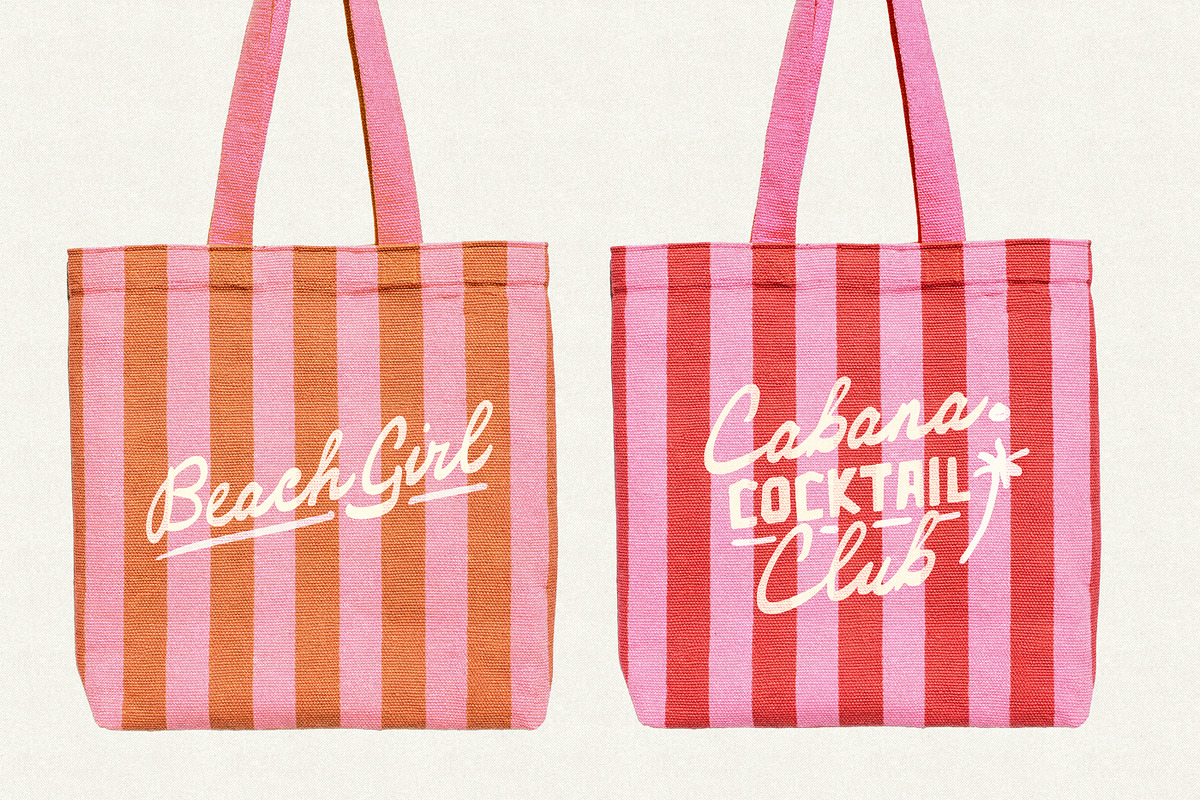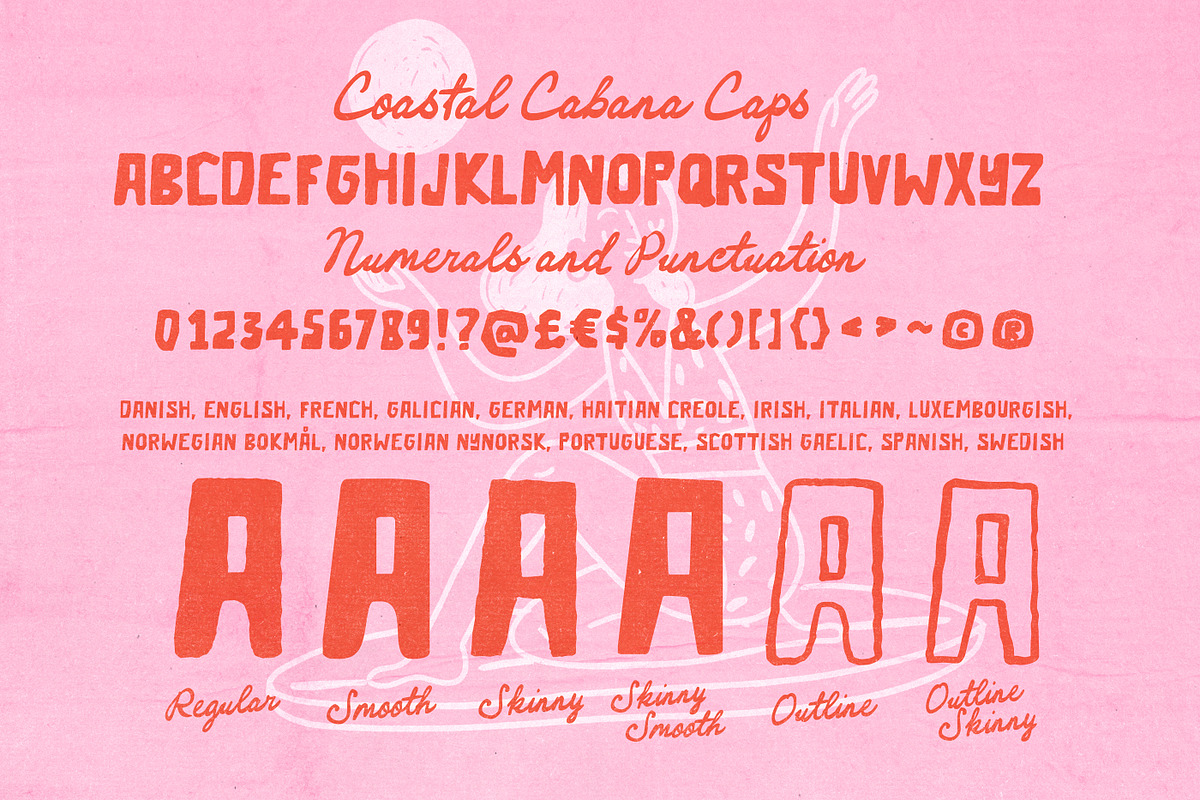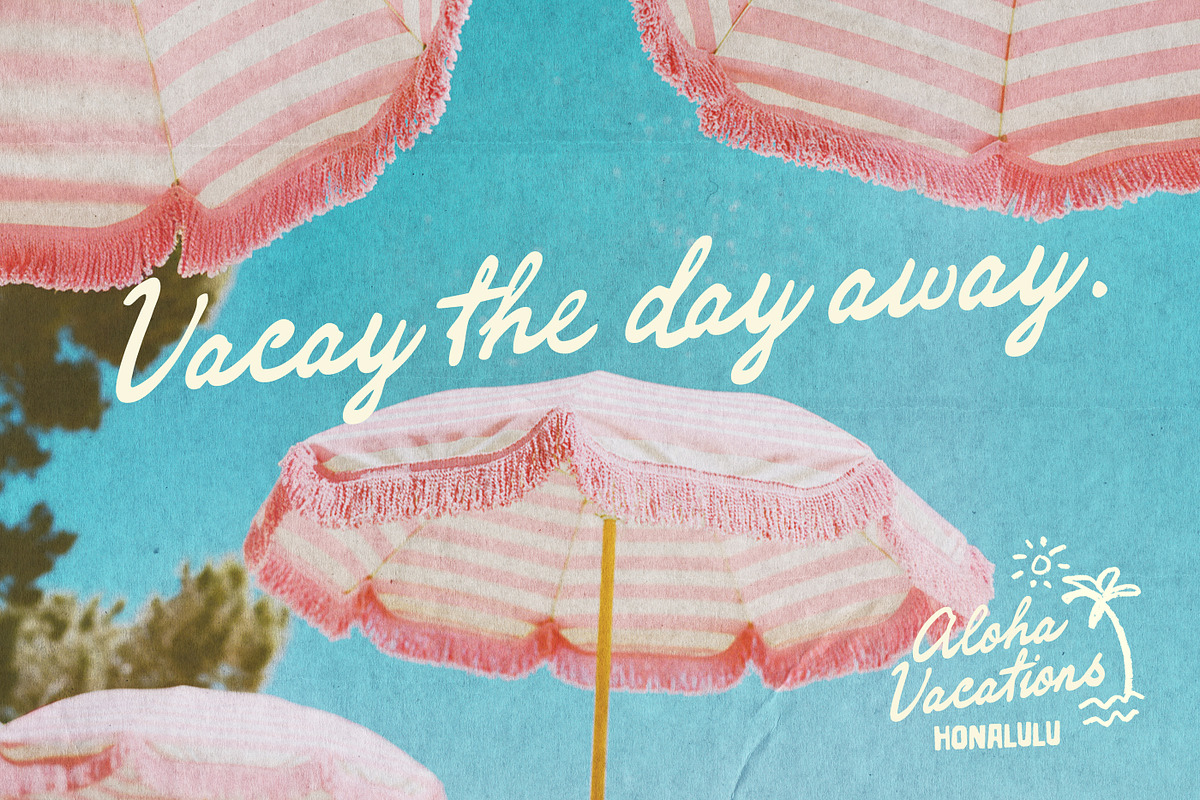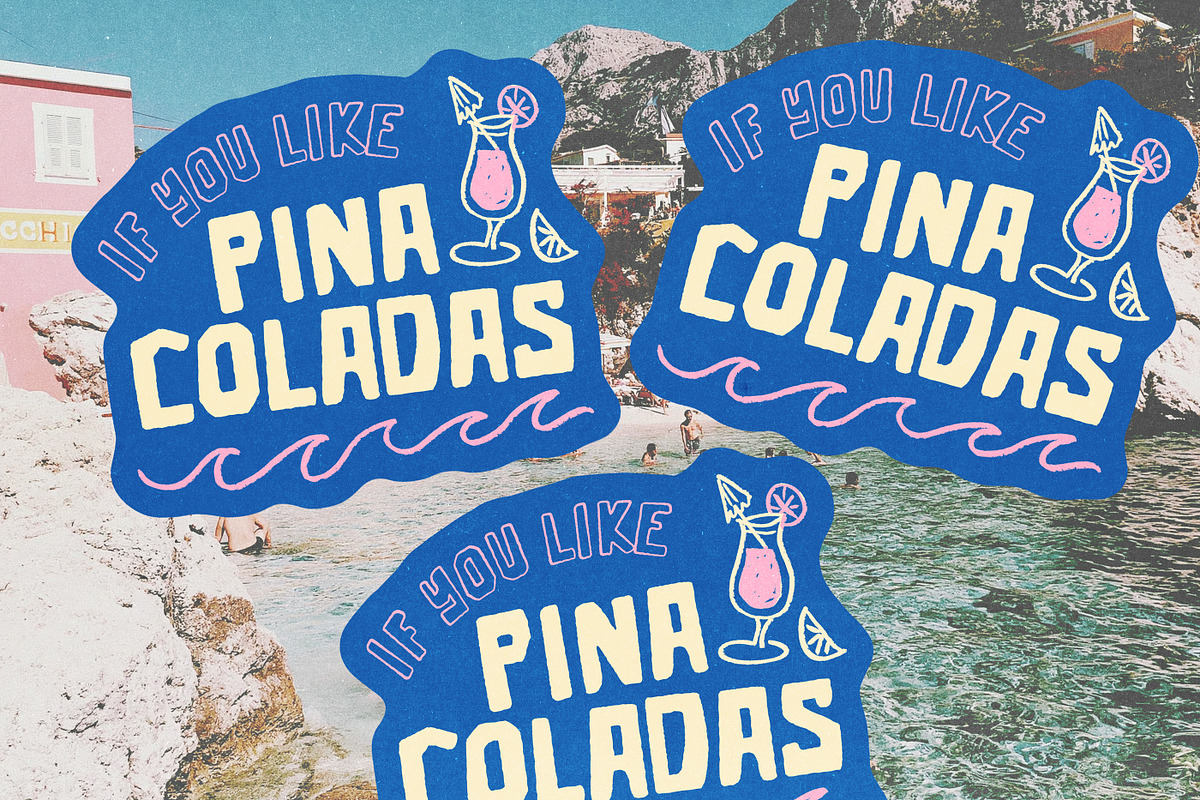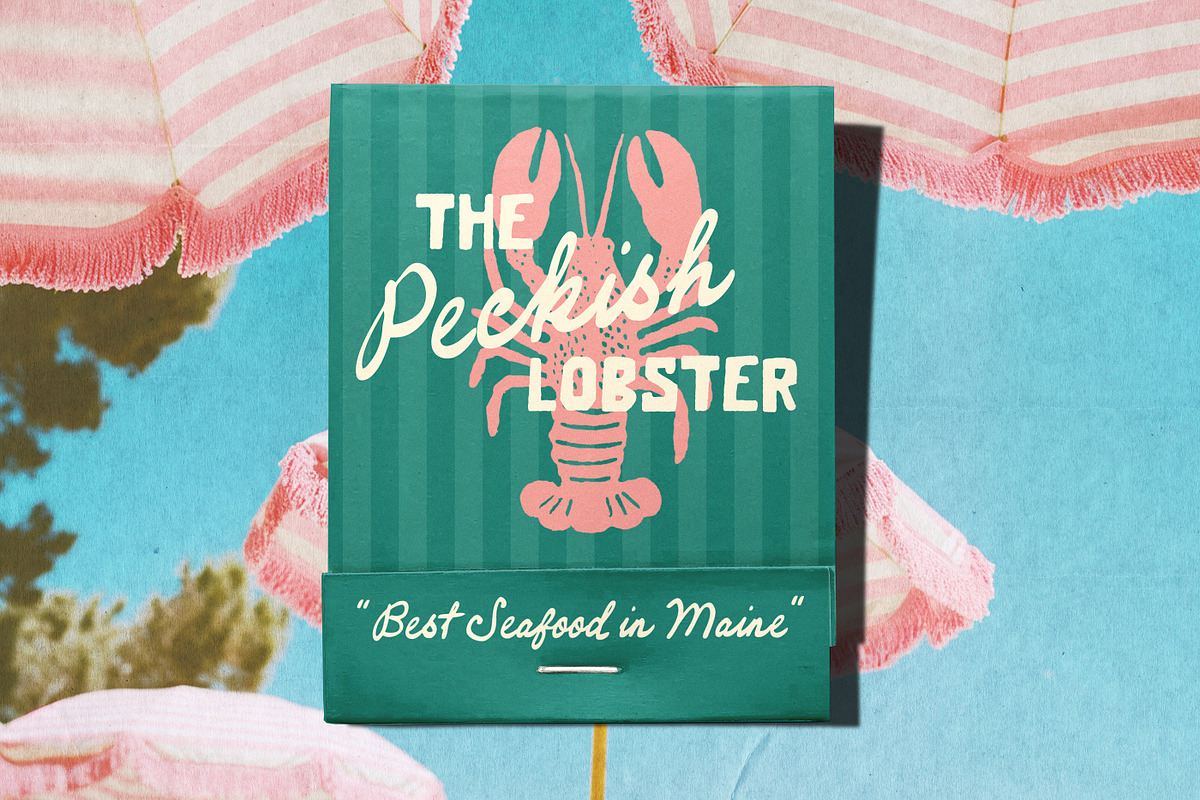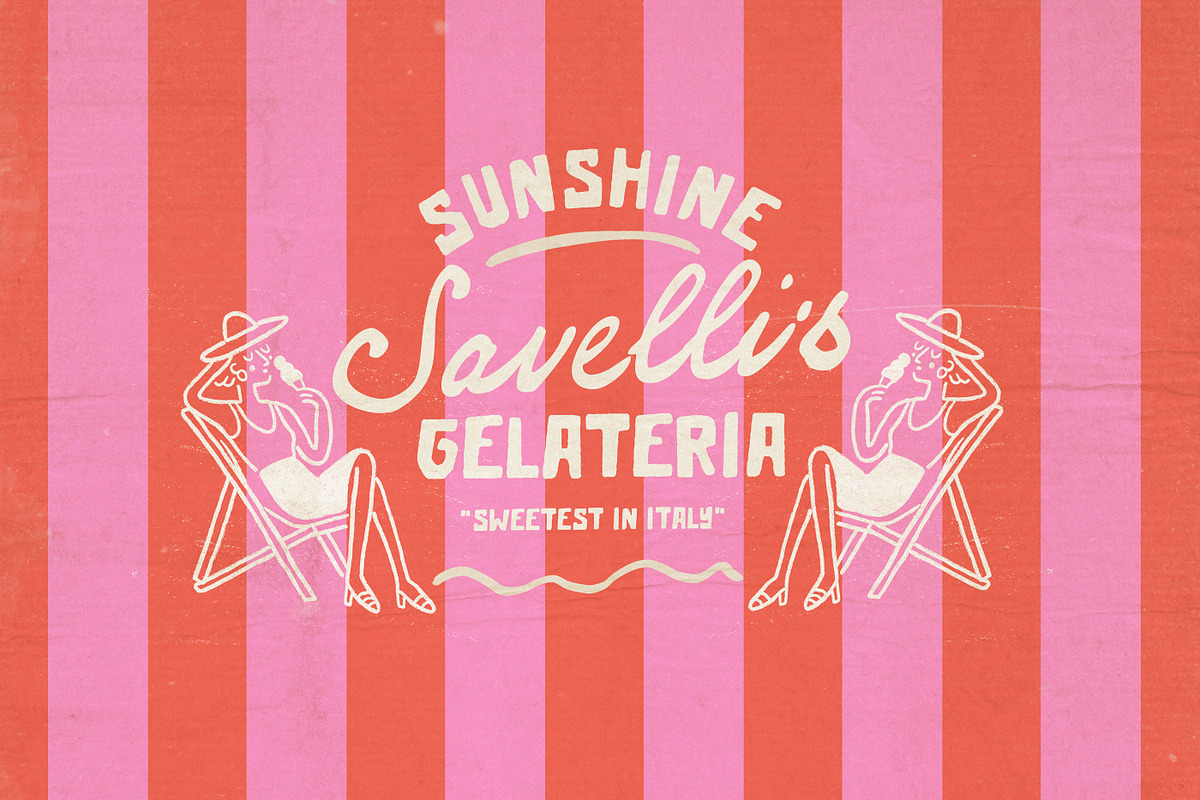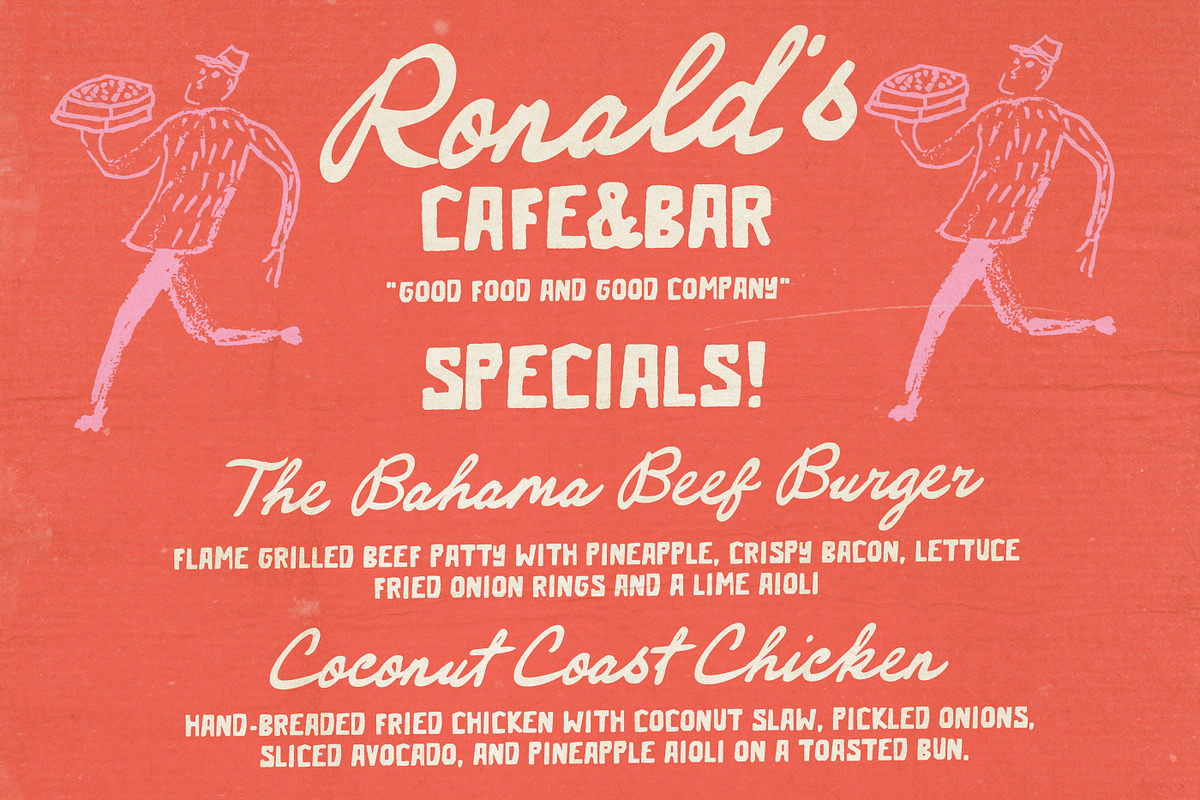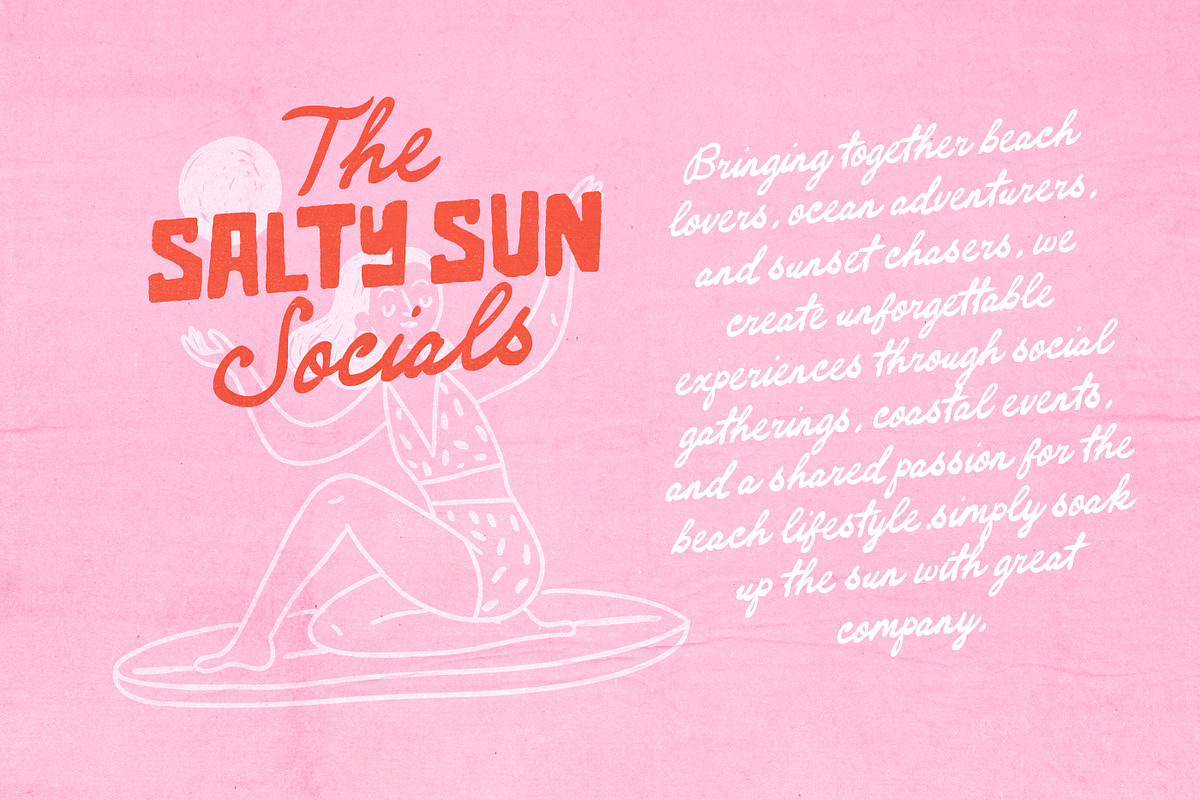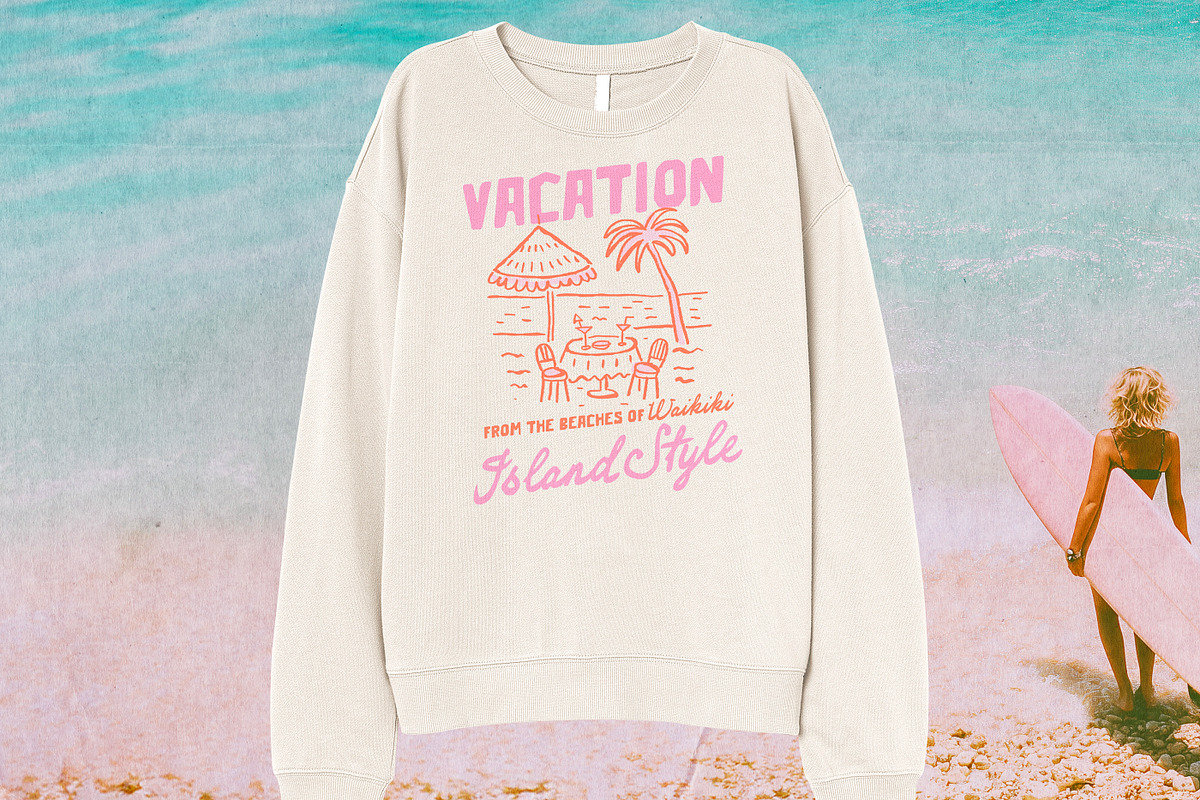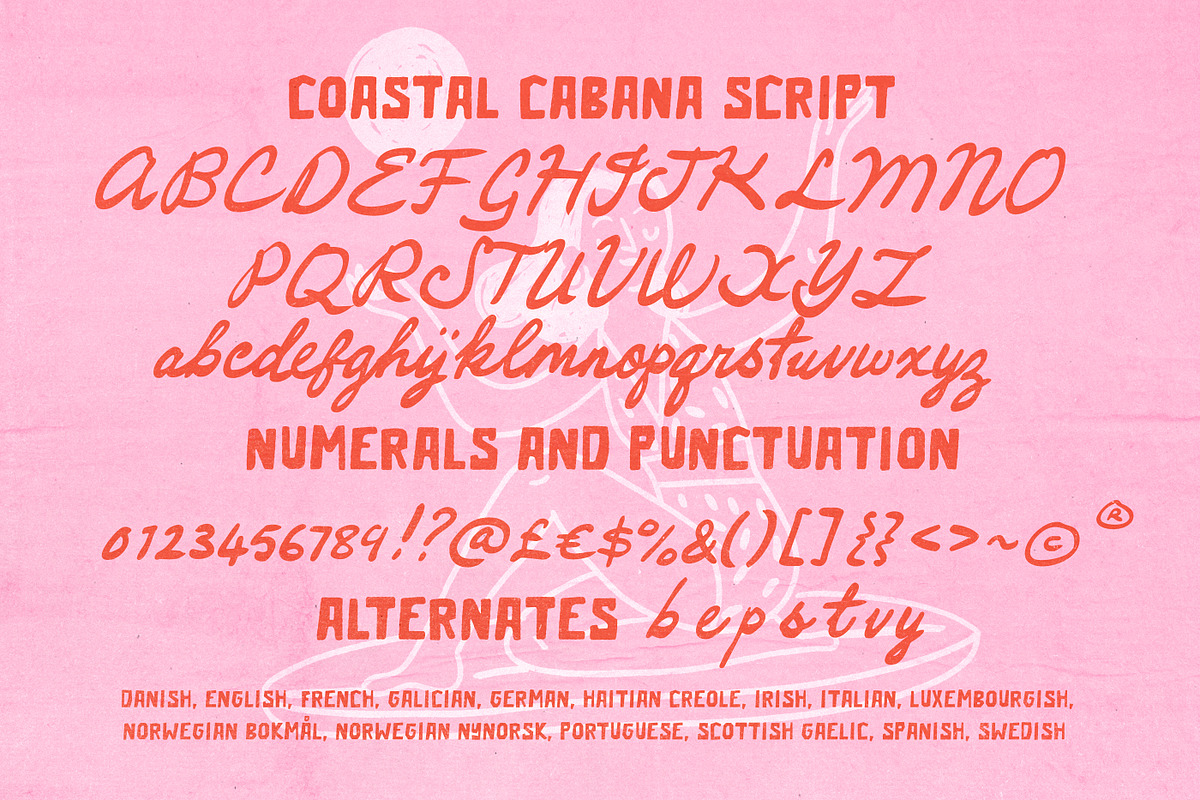
Coastal Cabana Island Style Font Duo
Say hello to “ Coastal Cabana”! A Casual Beach-ready combo that’s ready to put you in vacay mode and whisk you off to paradise :)
A Chunky, retro bold surfer style all-caps sans, combined with a easy-going, natural handwritten brush script - makes for a perfect pairing for summer posters, beach merch, coastal Invites, tropical branding, Seaside Weddings, and anything that needs that Island Vacation Vibe!
The Script comes with several handy variants - each ever so slightly different in slant and weight to match your needs. Lighter weights look better when using as light coloured text on darker backgrounds and vice verse.
The Sans comes in several slight variants too - smooth versions of the original letters, and two outline versions :)